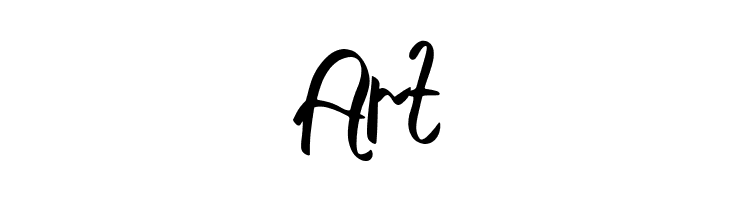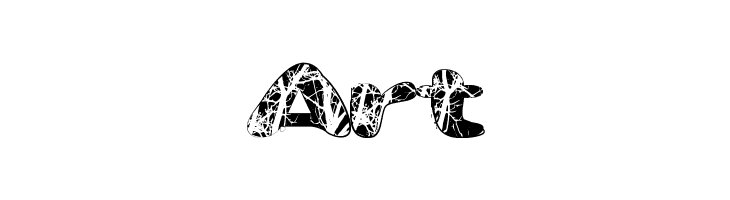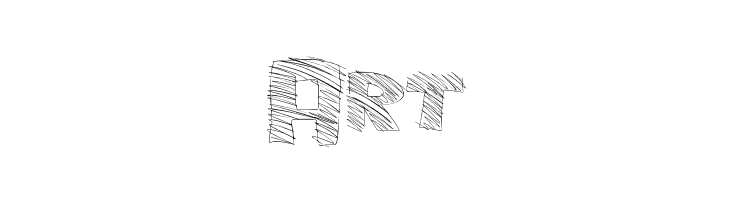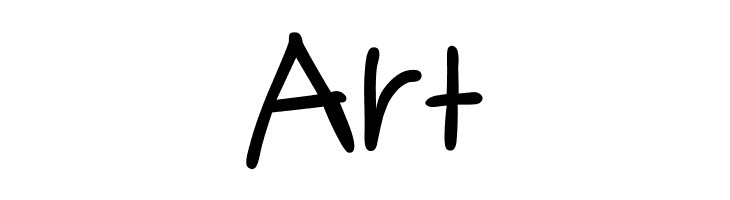
A bold, distressed font with a textured, vintage appearance.
A bold, playful font with rounded, cartoonish characters and tight spacing.
A jagged, horror-themed font with sharp, serrated edges.
A sketchy, hand-drawn font with a playful and artistic style.
A bold, striped font with dynamic diagonal lines for a striking visual impact.
A bold, decorative font with a textured, vein-like pattern.
A bold and expressive script font with fluid, cursive strokes.
A bold, expressive script font with dynamic flow and elegant curves.
A bold, expressive script font with dynamic, flowing strokes.